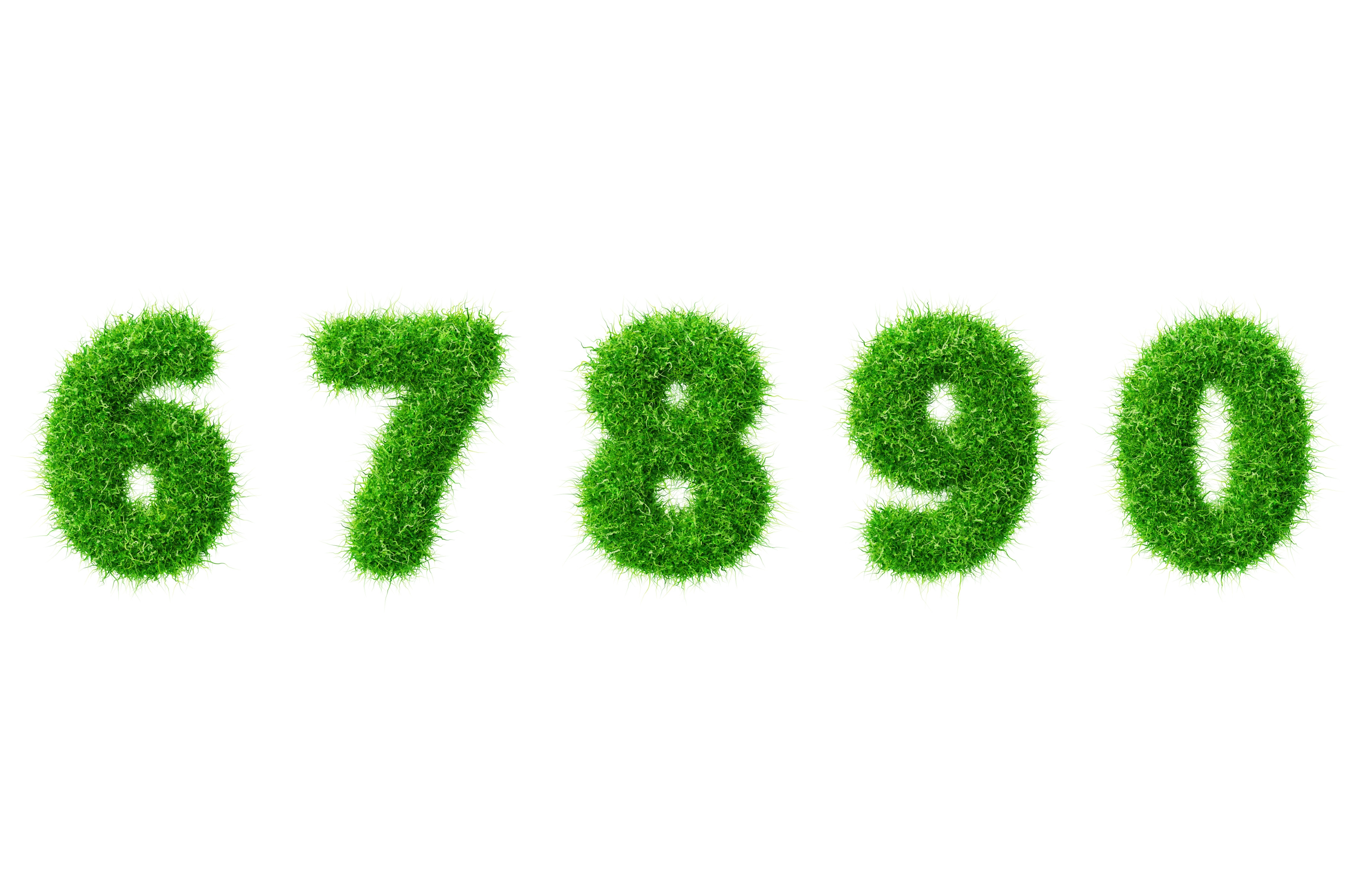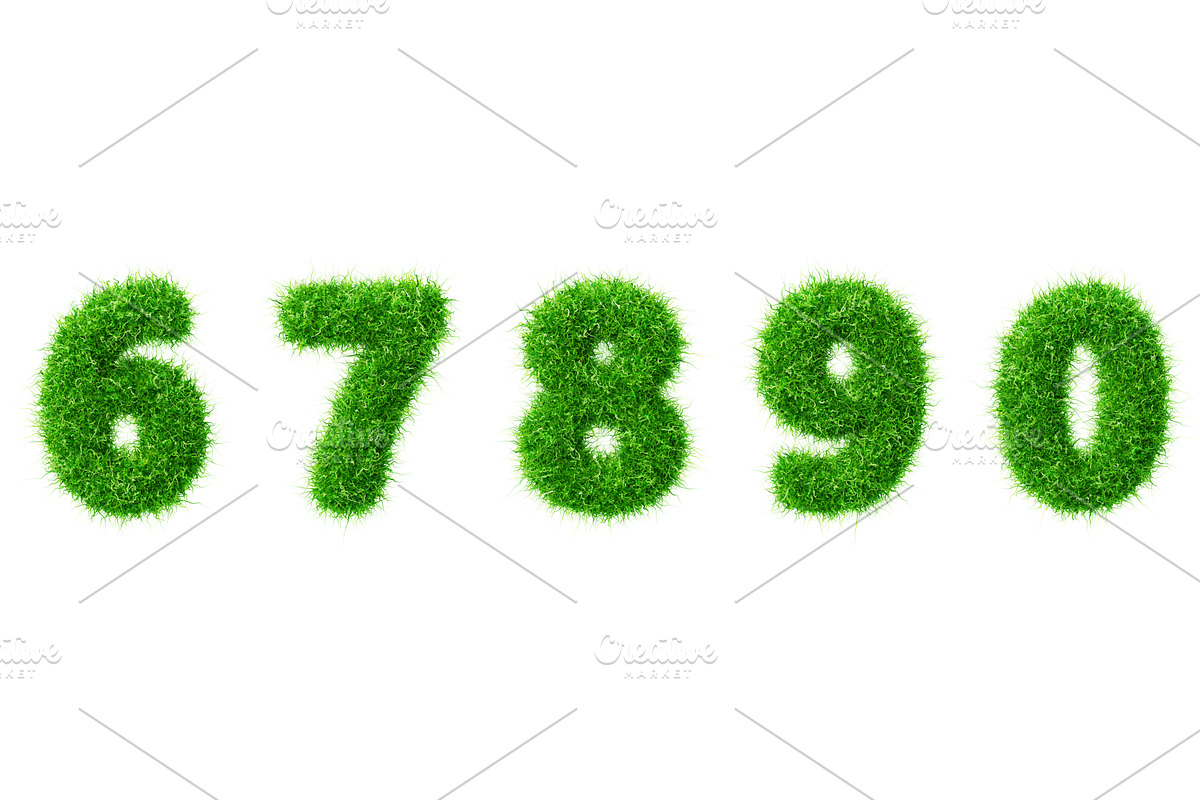
3d green grass font, fluffy numbers
3d green grass font, fluffy numbers from 6 to 0. Fresh summer or spring plant digits, moss numeral icons. Natural eco organic balloons, lawn type effect with fuzzy herb texture render. 3D illustration